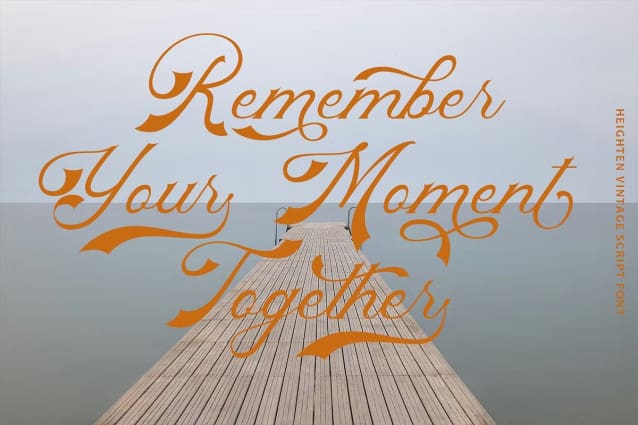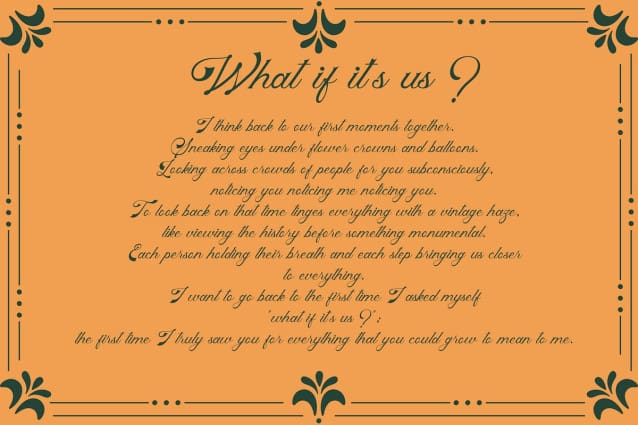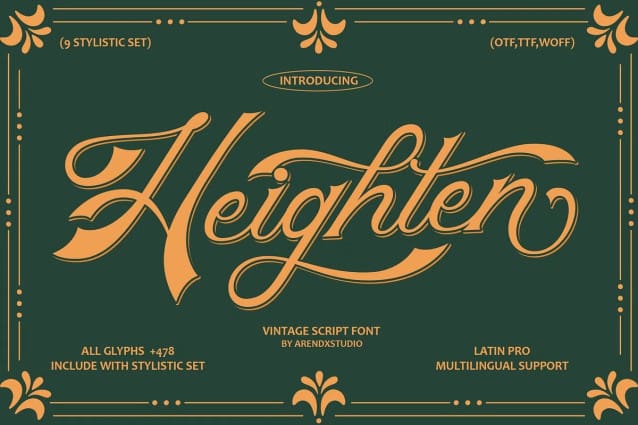
Heighten Font
Heighten Font is a vintage script font that effortlessly combines elegance and nostalgia. Its intricate details, smooth curves, and versatile applications make it an ideal choice for designers looking to add a touch of classic sophistication to their projects. Whether used for logos, invitations, or editorial design, Heighten brings a timeless beauty that stands out and elevates any design.